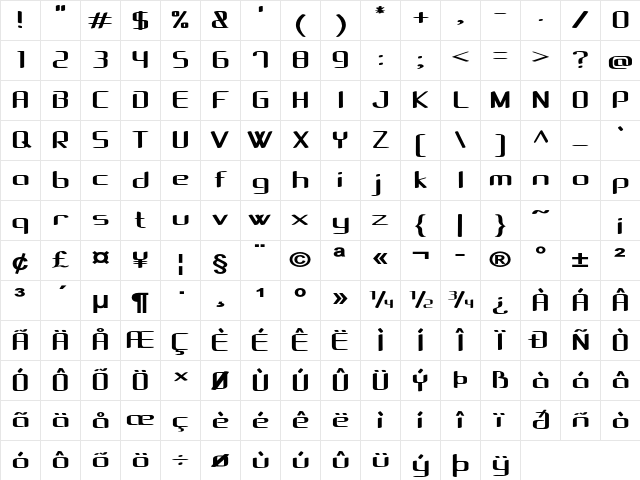
Amped Expanded Bold Free Font
Amped Expanded Bold
Style: Expanded Bold
Amped Family
Complete Amped Expanded Bold glyph index. Displaying only characters natively supported by Amped Expanded Bold font.
Design Context for Amped
Amped is a composed and adaptable typeface that performs quietly and consistently across a wide range of design contexts. Its bold stroke weight gives it real presence on the page.